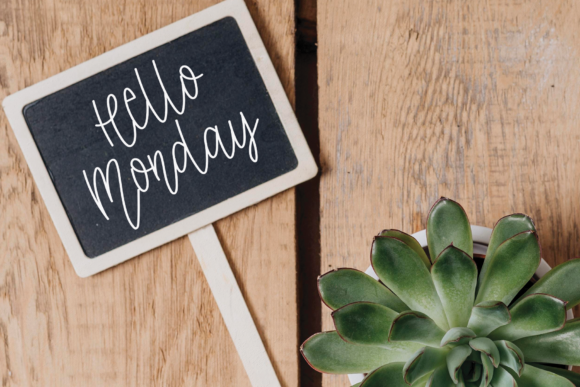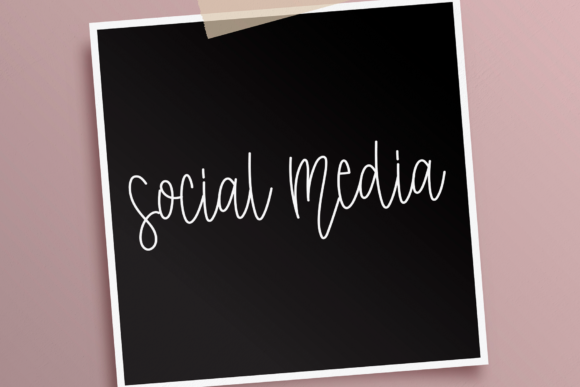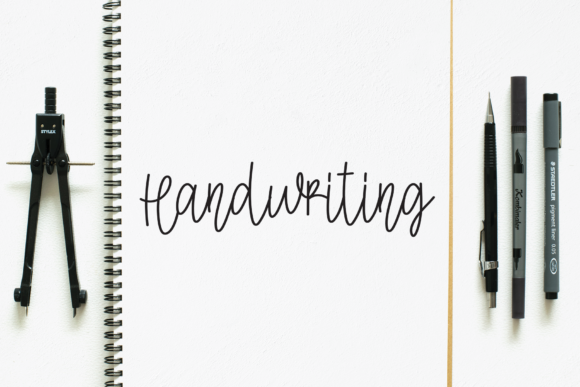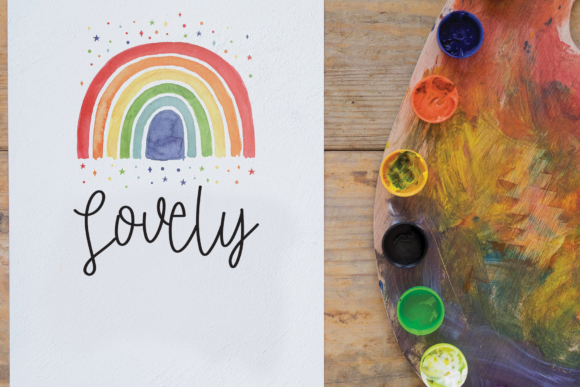
Introduction to Marollyna Font
Have you ever been working on a creative project, pouring your heart and soul into it, only to feel like something’s missing? That’s exactly what happened to me when I was designing a new logo for a friend’s business. I had the concept, the colors, and the message, but it just wasn’t standing out. That’s when I stumbled upon the Marollyna Font – a game-changer in the world of typography.
With its thin lettered script and playful characters, the Marollyna Font adds a touch of whimsy to any design. Whether you’re working on a free download or a high-quality design resource, this font is sure to elevate your creative project to the next level. Plus, its transparent background makes it easy to layer with other elements, giving you endless possibilities for customization.
As a designer, you know how valuable it is to have the right tools at your disposal. The Marollyna Font is more than just a design element – it’s a key to unlocking your full creative potential. So why settle for ordinary when you can have extraordinary? Add the Marollyna Font to your design arsenal today and watch your creative ideas come to life in a whole new way.
Key Features of Marollyna Font
- Unique, elegant script font with a transparent background, ideal for overlaying on images
- Perfect for designers seeking a sophisticated, yet subtle font for branding, invitations, and other creative projects
Honest Review: Marollyna Font
I recently came across the Marollyna Font, and I must say it’s been a game-changer for my creative projects. As a designer, I’m always on the lookout for high-quality design resources that can elevate my work. The Marollyna Font certainly delivers.
Here are some things that work well with the Marollyna Font:
- ✨ Unique and elegant design style that’s perfect for creative projects
- ✨ High-quality typography that’s clear and readable
- ✨ Transparent background option, allowing for seamless integration into various design backgrounds
However, I did encounter some limitations with the Marollyna Font:
- ⚠️ Limited font variations, which may not be suitable for complex design projects
- ⚠️ May not be suitable for use in small font sizes due to its elegant design style
Overall, I’m thoroughly impressed with the Marollyna Font. Its unique design style and high-quality typography make it a valuable addition to any designer’s toolkit. While it may have some limitations, I believe it’s still a great resource for designers working on creative projects.
Tips for Getting the Most Out of Marollyna Font
For the best results, use Marollyna Font on a transparent background. This will allow you to easily combine the font with other design elements and backgrounds.
Marollyna Font is suitable for a wide range of creative projects, including:
- Infographics and data visualizations
- Personal projects and creative expressions